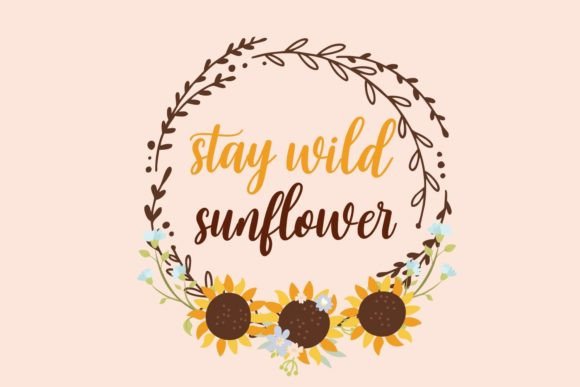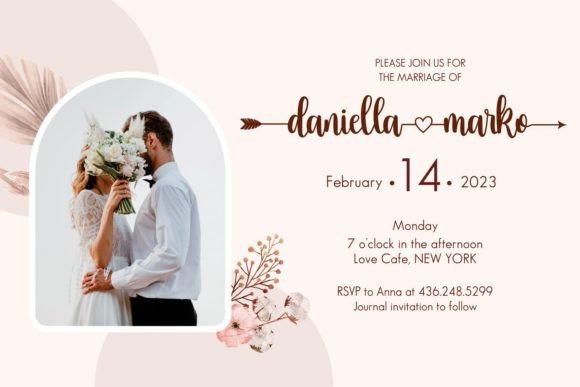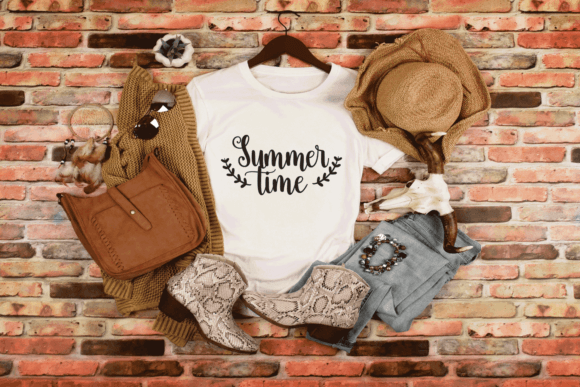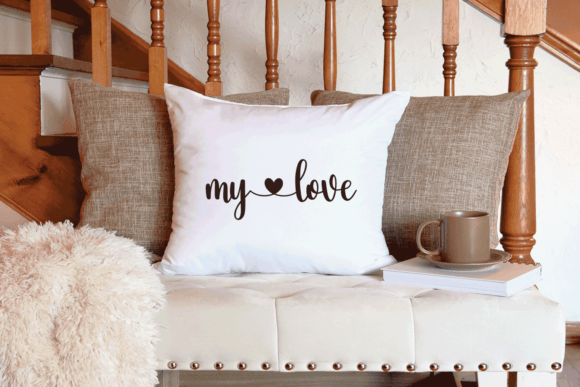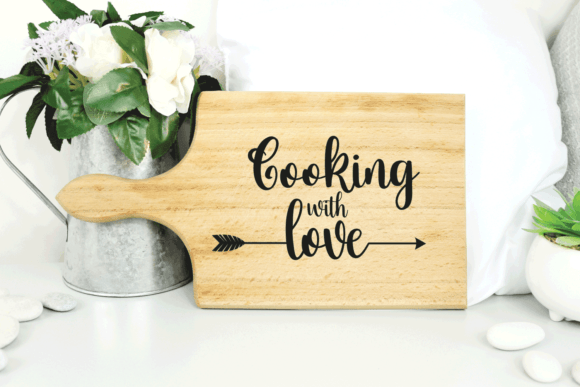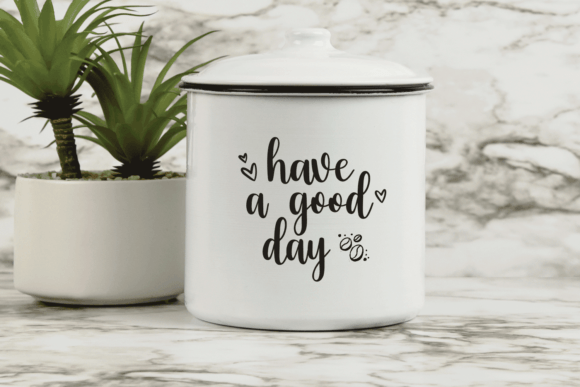
Introducing Feather Font: The Quirky and Natural Handwritten Script
Are you tired of using the same old fonts for your crafting, branding, and design projects? Look no further than Feather Font, a beautiful script handwritten font that’s perfect for adding a personal touch to your work. With its quirky and natural hand-drawn style, Feather Font is ideal for crafters, designers, and businesses looking to create unique and eye-catching designs.
What Makes Feather Font Special?
Feather Font is a one-of-a-kind font that’s designed to add a touch of personality to your projects. Its hand-drawn style gives it a natural and effortless look that’s perfect for creating designs that feel authentic and relatable. Whether you’re working on a book cover, stationery, marketing materials, or magazine, Feather Font is the perfect choice for adding a touch of whimsy and charm.
Endless Possibilities with Feather Font
One of the best things about Feather Font is its versatility. This font can be used for a wide range of projects, from crafting and DIY tutorials to branding and marketing materials. Imagine being able to create custom signs, invitations, and party decorations that reflect your personal style. With Feather Font, the possibilities are endless!
Perfect for Crafters and Designers
Feather Font is a dream come true for crafters and designers who want to add a personal touch to their work. Whether you’re creating handmade cards, scrapbooking pages, or custom jewelry, this font is the perfect choice for adding a touch of elegance and sophistication. Plus, with its PUA encoding, you can access all of the glyphs and swashes with ease, making it easy to customize your designs.
Key Features of Feather Font
- Handwritten script font: Feather Font is a beautiful, hand-drawn script font that’s perfect for adding a personal touch to your designs.
- Quirky and natural style: This font has a quirky and natural style that’s perfect for creating unique and eye-catching designs.
- Ideal for crafting and branding: Feather Font is perfect for crafting, branding, and decorating your projects.
- PUA encoded: With PUA encoding, you can access all of the glyphs and swashes with ease, making it easy to customize your designs.
- Versatile: Feather Font can be used for a wide range of projects, from book covers and stationery to marketing materials and magazines.
Tips and Tricks for Using Feather Font
Here are a few tips and tricks for getting the most out of Feather Font:
- Experiment with different colors and textures: Feather Font looks great in a variety of colors and textures. Experiment with different combinations to find the one that works best for your design.
- Use it with other fonts: Feather Font pairs well with other fonts, such as sans-serif fonts or serif fonts. Experiment with different combinations to find the one that works best for your design.
- Don’t be afraid to get creative: Feather Font is a versatile font that can be used in a wide range of designs. Don’t be afraid to get creative and try new things!
Feather Font is a beautiful, handwritten script font that’s perfect for adding a personal touch to your designs. With its quirky and natural style, it’s ideal for crafting, branding, and decorating your projects. Whether you’re a crafter, designer, or business owner, Feather Font is a great choice for creating unique and eye-catching designs. So why wait? Download Feather Font today and start creating spectacular designs!